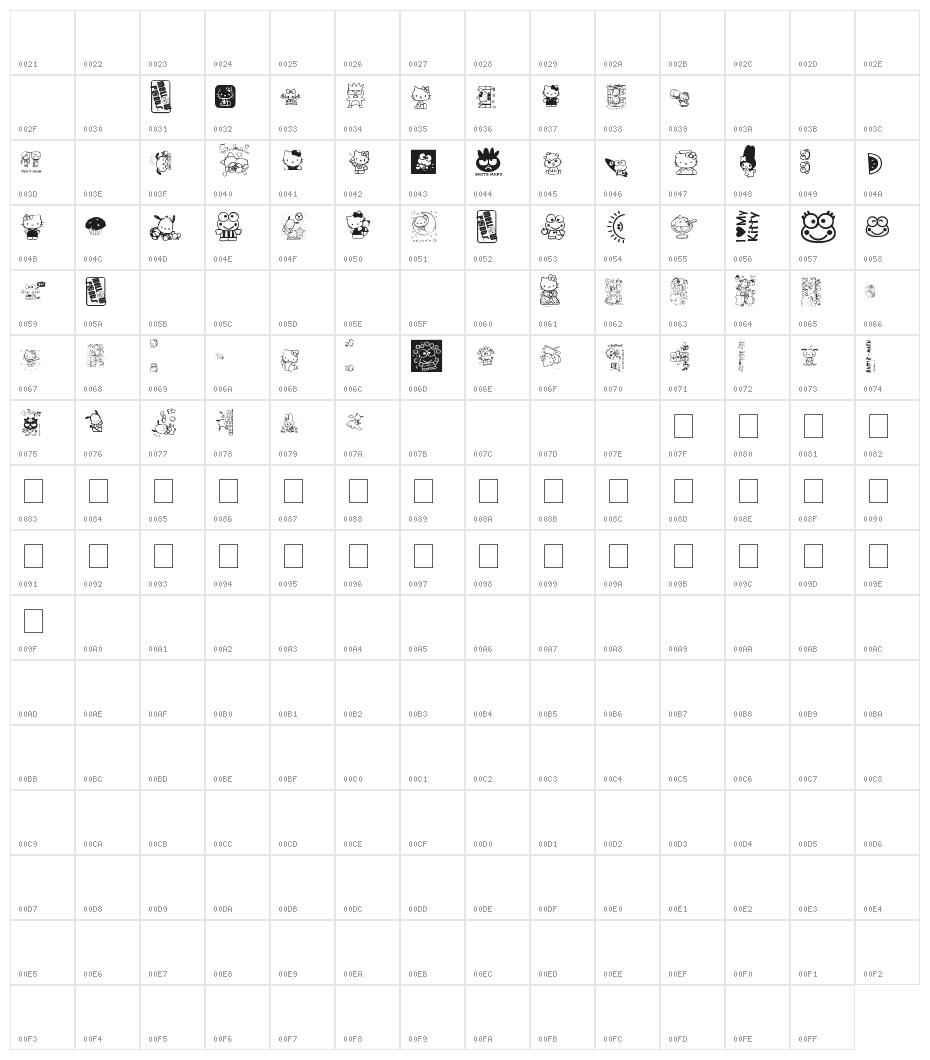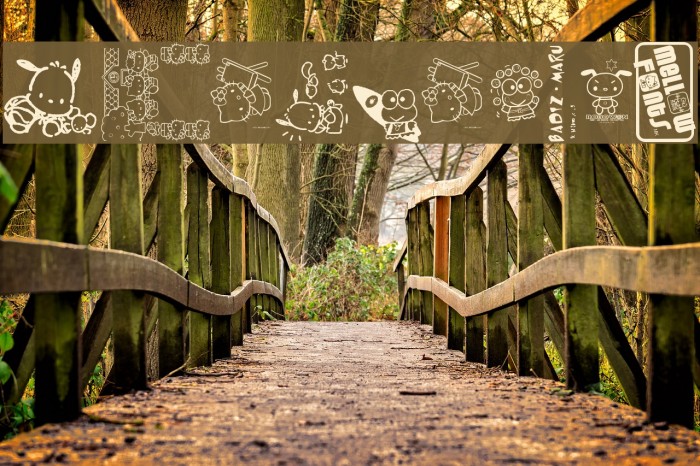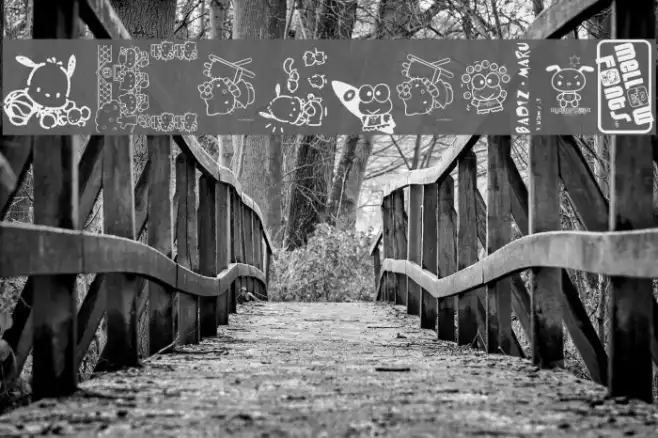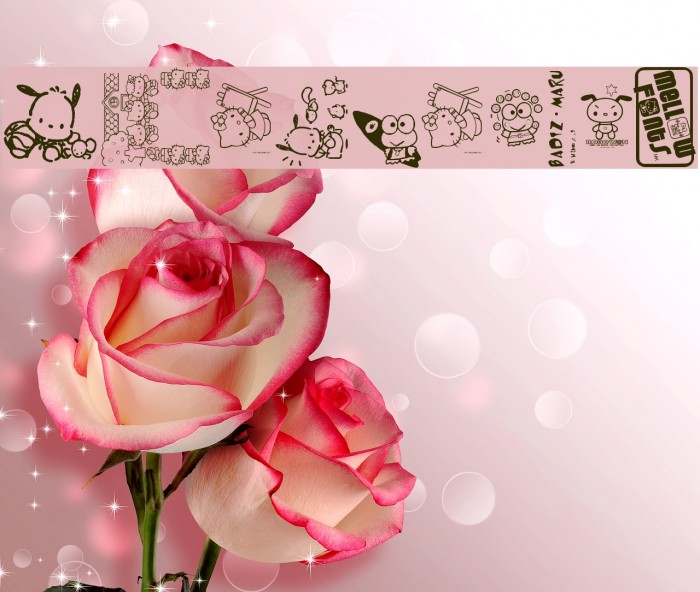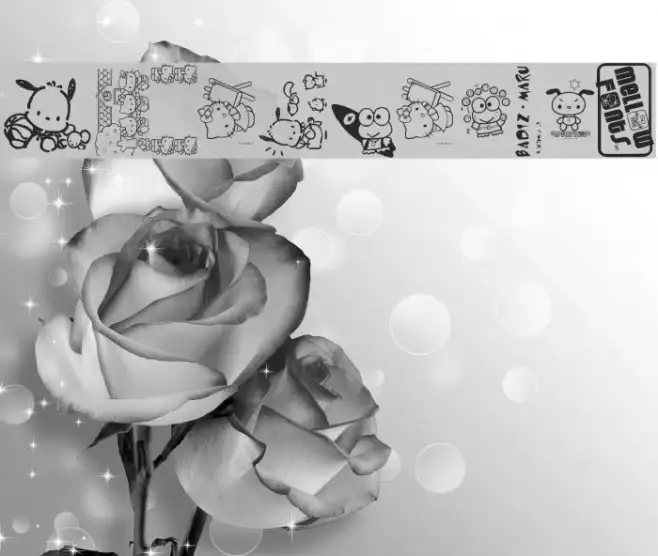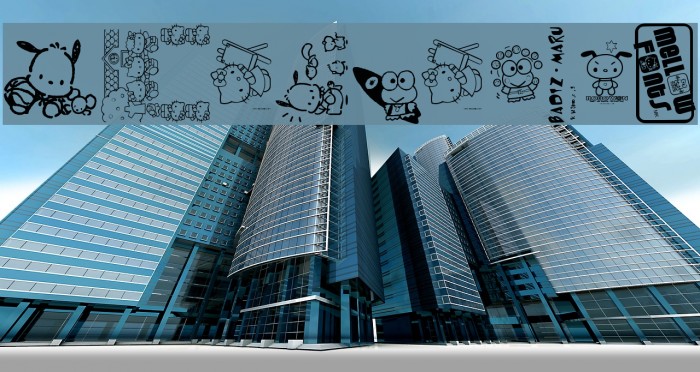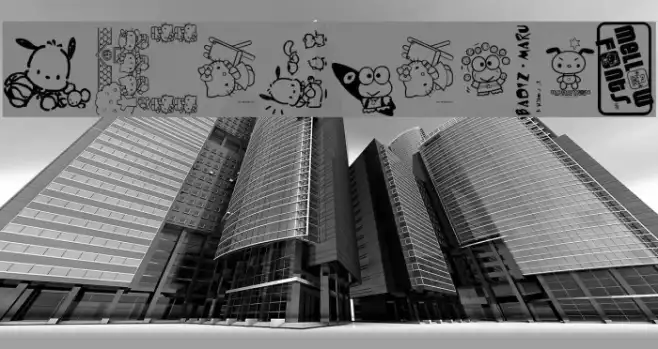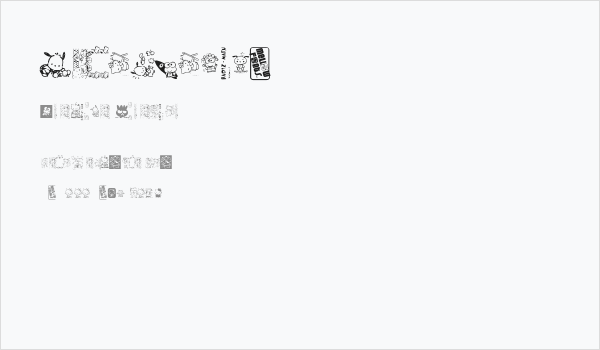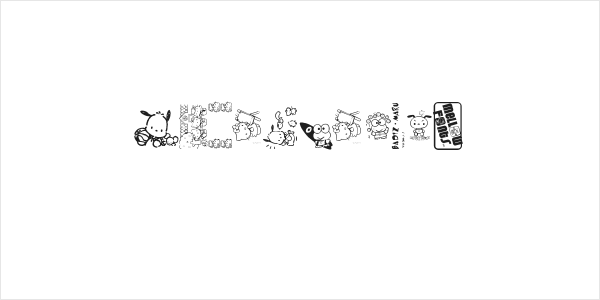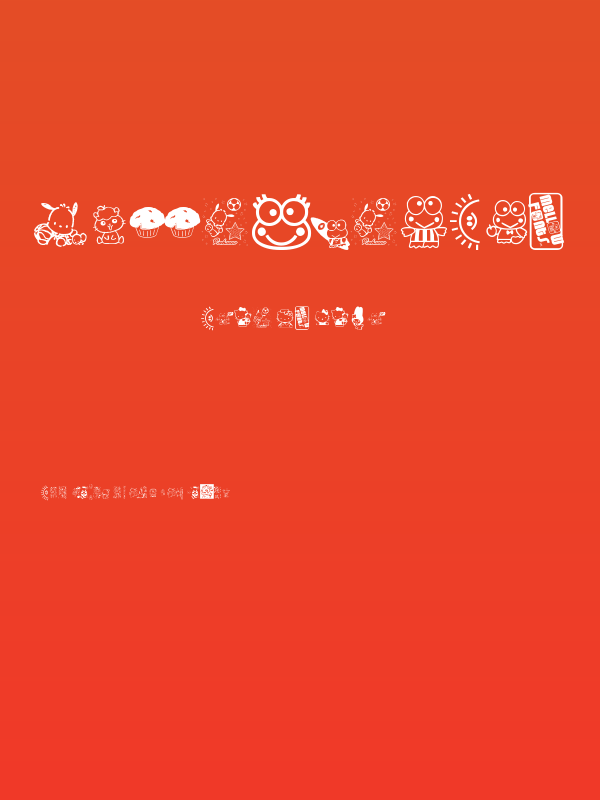
MellowFonts1 Font
MellowFonts1 Description
A decorative display font composed of playful, cartoon-style illustrations featuring various characters and icons, with each glyph represented by a unique image rather than traditional letterforms.
| Overall Style | Playful, Decorative, Cartoon |
| Use Case | Decorative elements, icons, novelty graphics |
| Proposed Projects | ChildrenΓ’β¬β’s party invitations, themed posters, scrapbooking, stickers, novelty merchandise, and playful branding. |